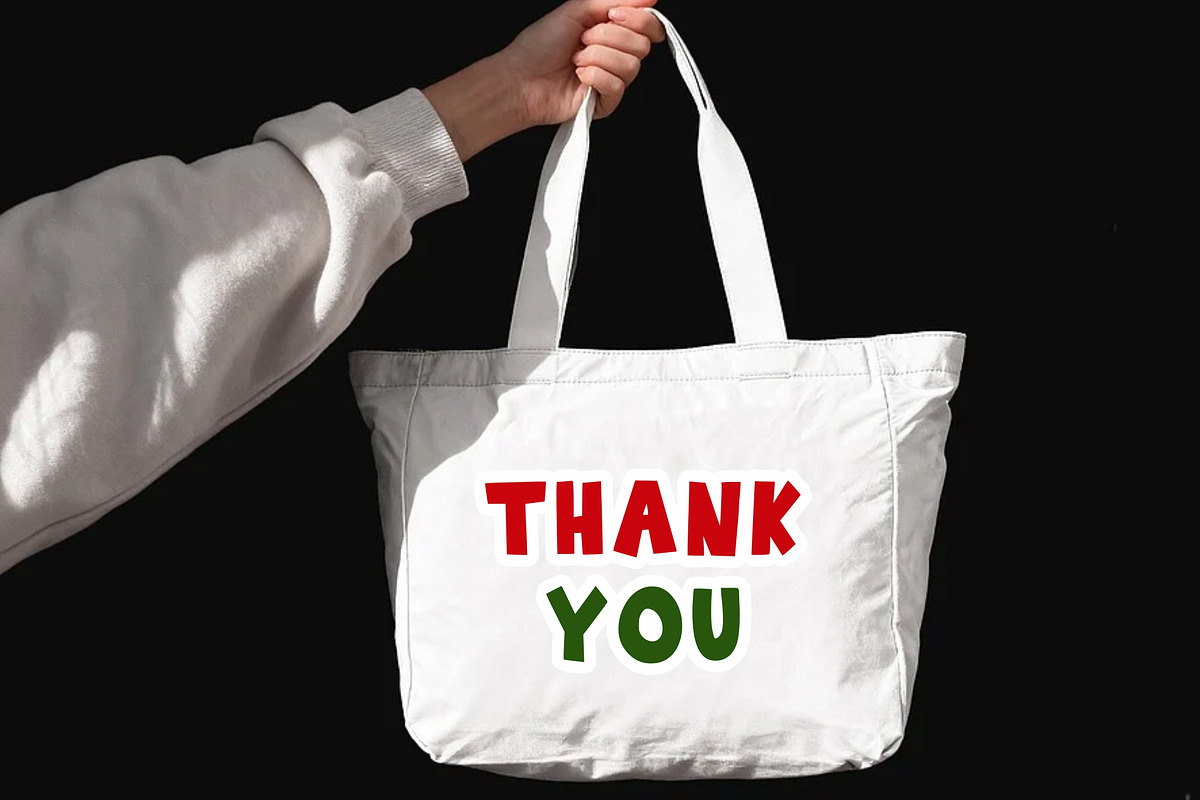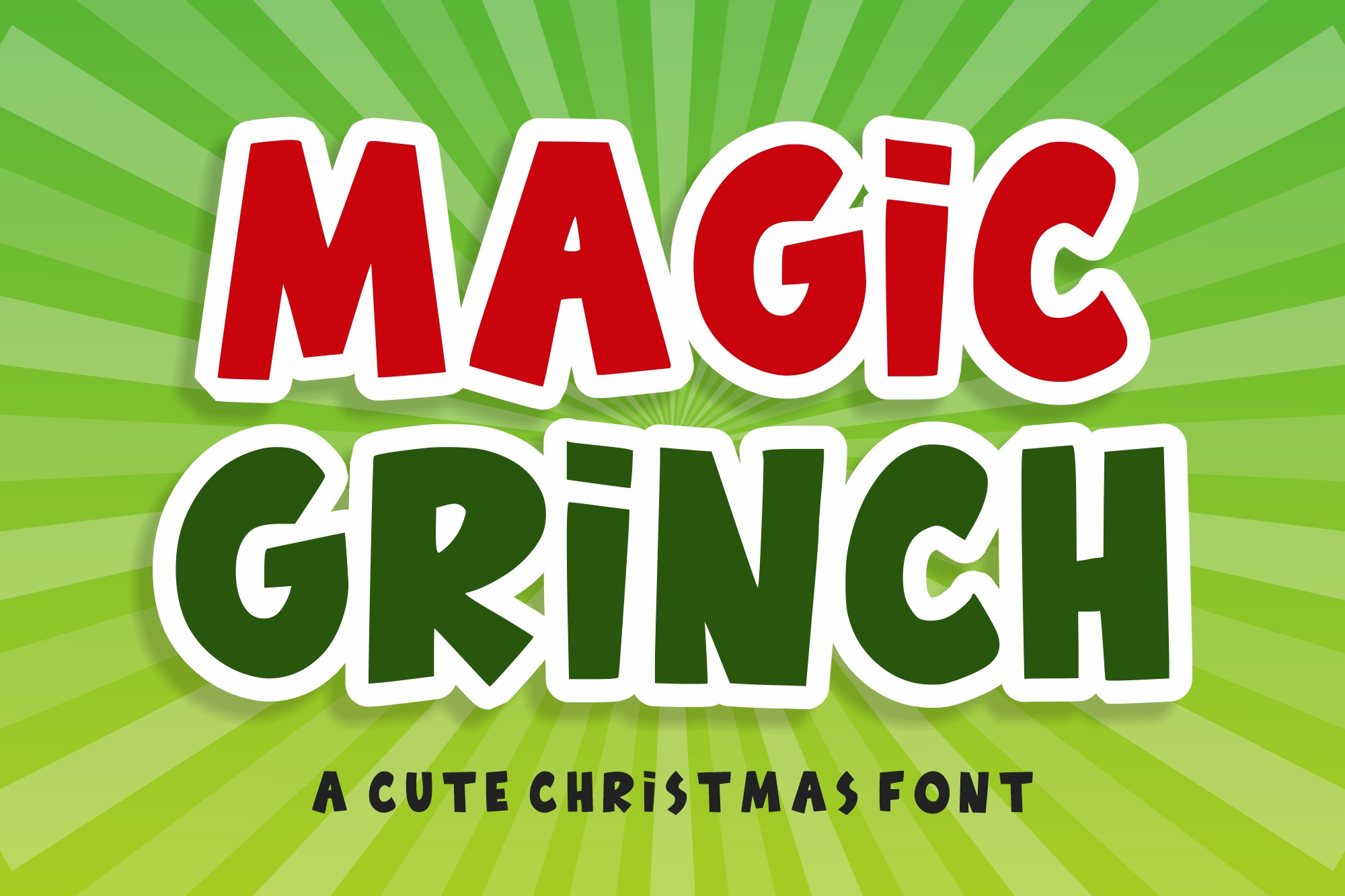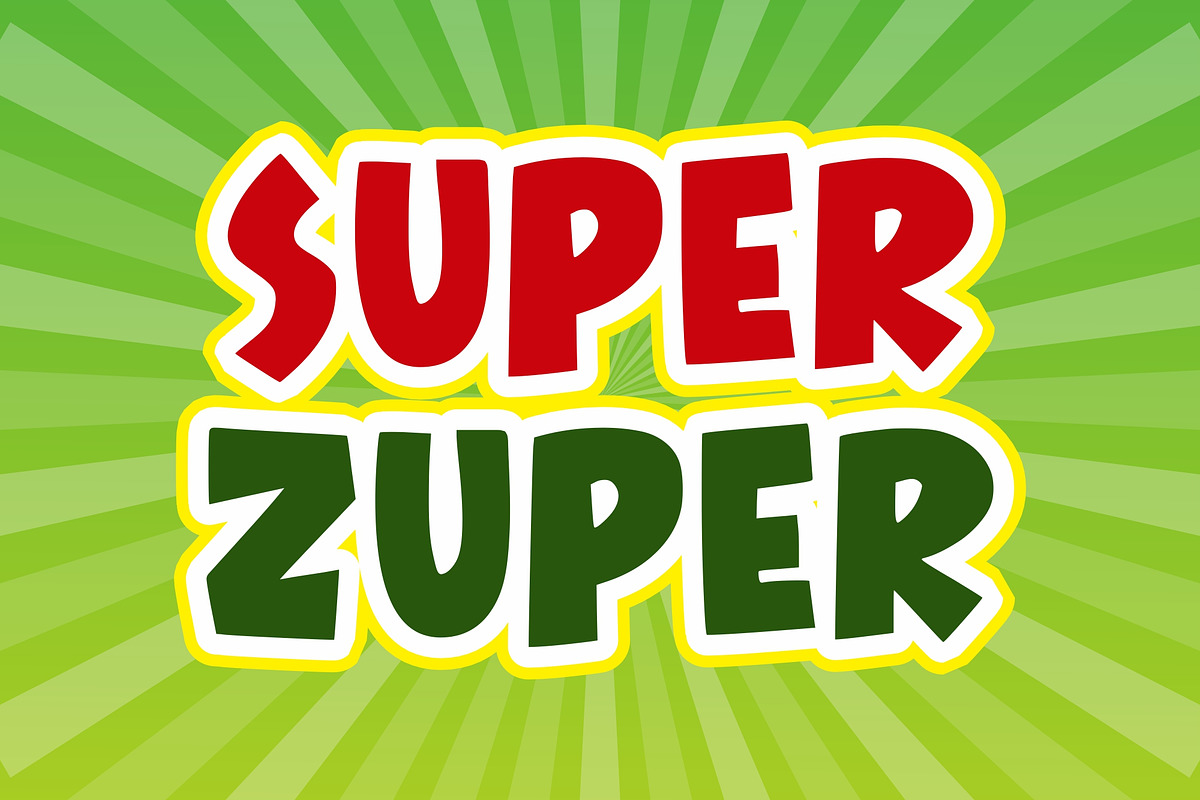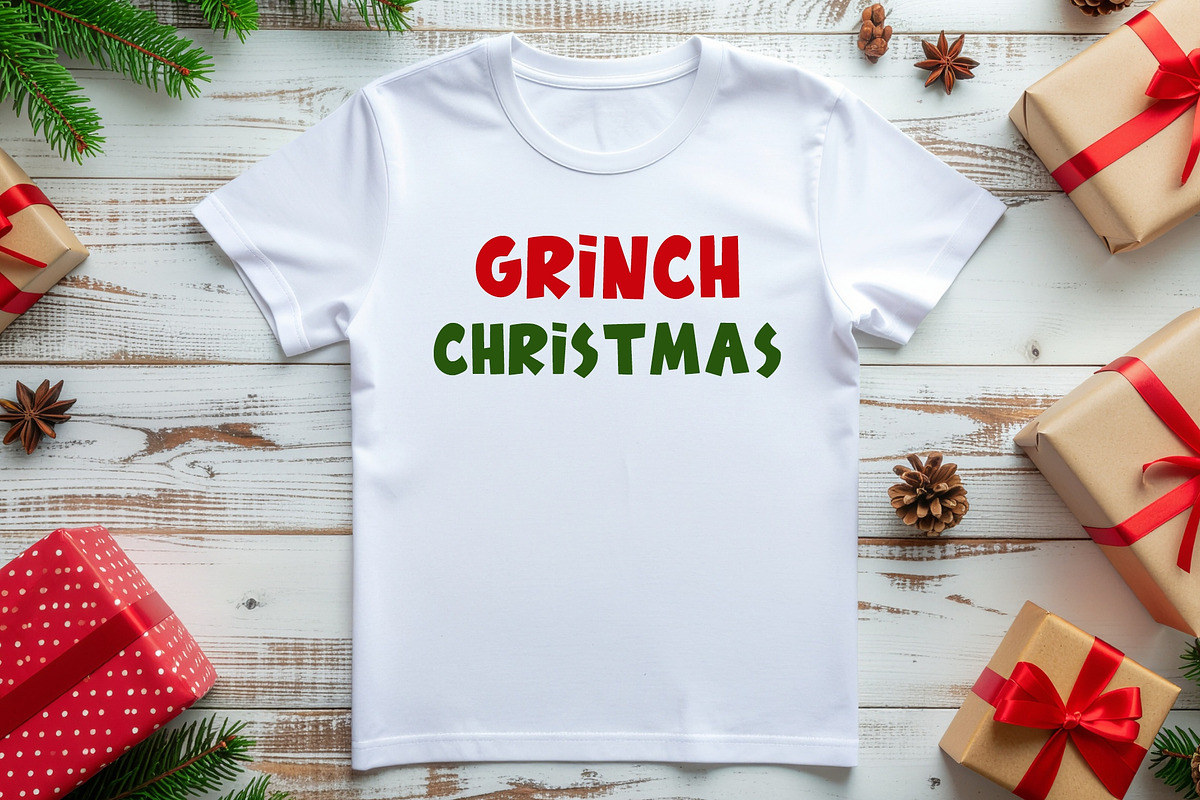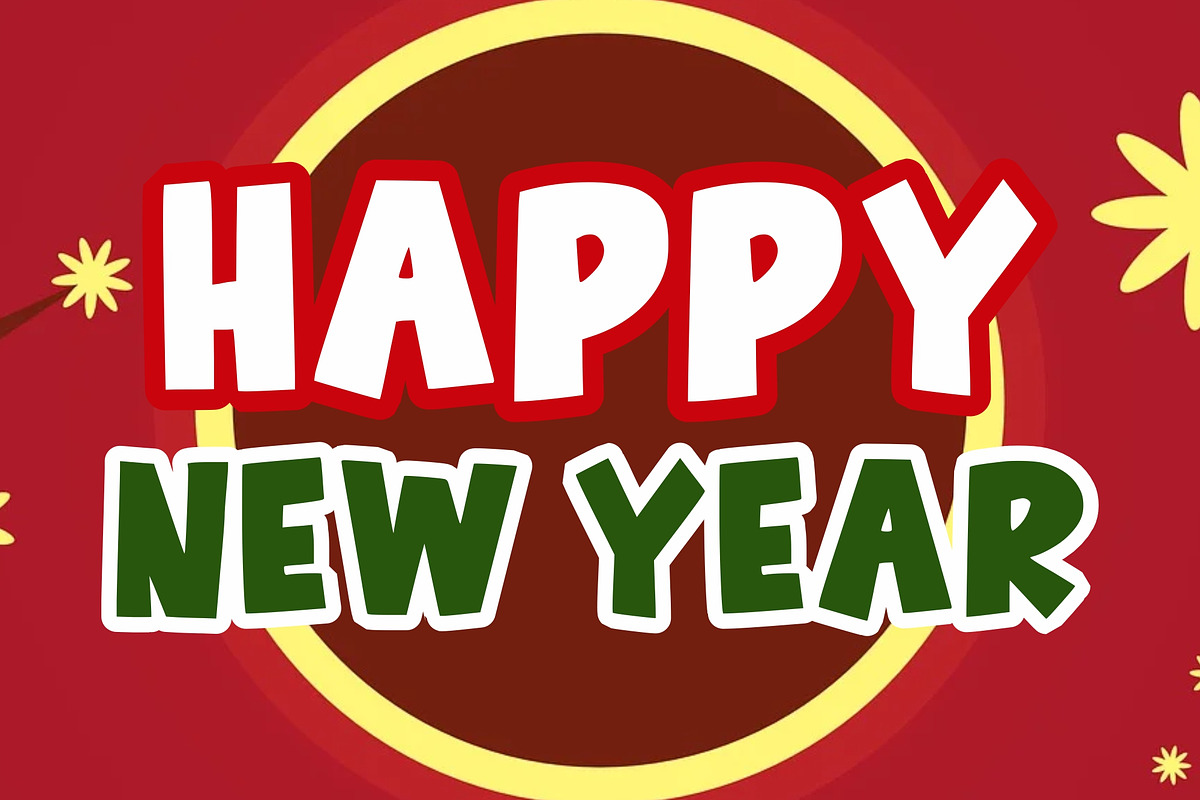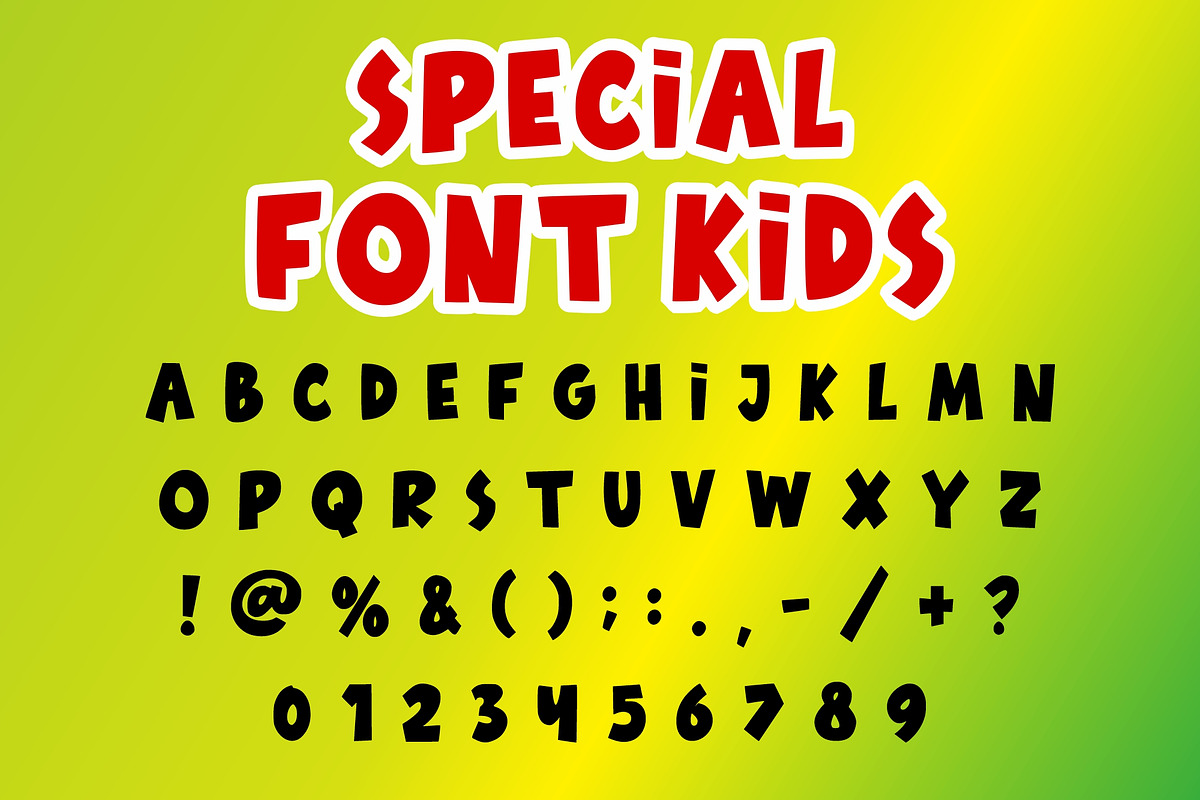
Magic Grinch - Comic Font
Get ready to steal the show with the Magic Grinch font, a spirited and “cute Christmas font” designed to bring festive cheer to your holiday projects.
This Magic Grinch typeface features heavy, cartoonish letterforms with a playful bounce and a thick white outline, making it an instant standout against holiday-themed backgrounds. It is the perfect choice for Christmas cards, gift tags, festive apparel, and seasonal marketing campaigns that need a touch of whimsical, holiday magic.
The Magic Grinch font is incredibly versatile; its bold, rounded shapes ensure it remains highly legible on everything from digital banners to physical product packaging. Try pairing this Magic Grinch typeface with a simple, thin sans-serif to keep the focus on its festive personality, or use it alongside classic holiday illustrations like snowflakes and candy canes.
Whether you are designing for a school winter festival or a high-energy holiday sale, the Magic Grinch font provides the joyful and energetic vibe needed to make your season bright.